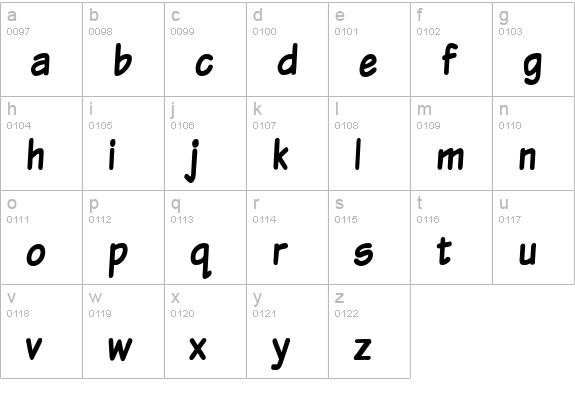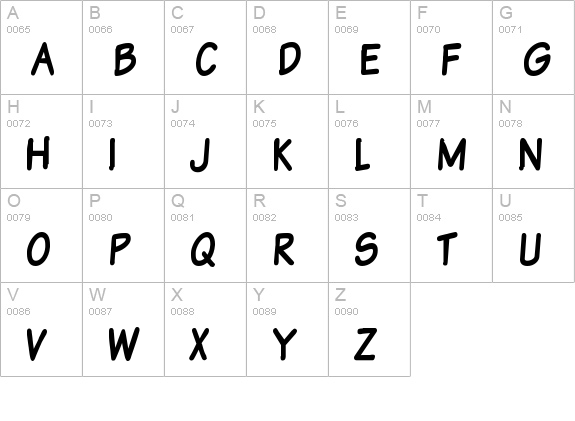
Introducing the VTCSundayKomixTall font, a captivating display typeface that is sure to make your designs pop! With its tall and bold letterforms, this font exudes a sense of confidence and charisma. Whether you're working on a poster, logo, or any other creative project, VTCSundayKomixTall will instantly grab attention and leave a lasting impression. What makes this font even more extraordinary is that it is available for free! Yes, you heard it right - freely available to download at FontsMarket.com. Now you can enhance your designs without worrying about any additional costs. This generosity allows both professional designers and enthusiasts alike to access this remarkable font and add a touch of uniqueness to their creations. The VTCSundayKomixTall font combines a modern twist with a touch of retro charm, making it versatile and suitable for various design styles. Whether you're aiming for a sleek and contemporary look or a vintage-inspired aesthetic, this font has got you covered. Its clean lines and well-defined shapes ensure legibility, even at smaller sizes, making it perfect for headlines, titles, and other attention-grabbing elements. Furthermore, the VTCSundayKomixTall font offers a wide range of glyphs and characters, allowing you to express your creativity without limitations. Punctuations, numerals, and special characters are all included, ensuring that you have everything you need to bring your design vision to life. So why wait? Download the VTCSundayKomixTall font today from FontsMarket.com and take your designs to new heights. With its striking appearance and the added bonus of being free, this font is a must-have for any creative project. Stand out from the crowd and make a lasting impression with the VTCSundayKomixTall font - your go-to choice for captivating and visually stunning designs.